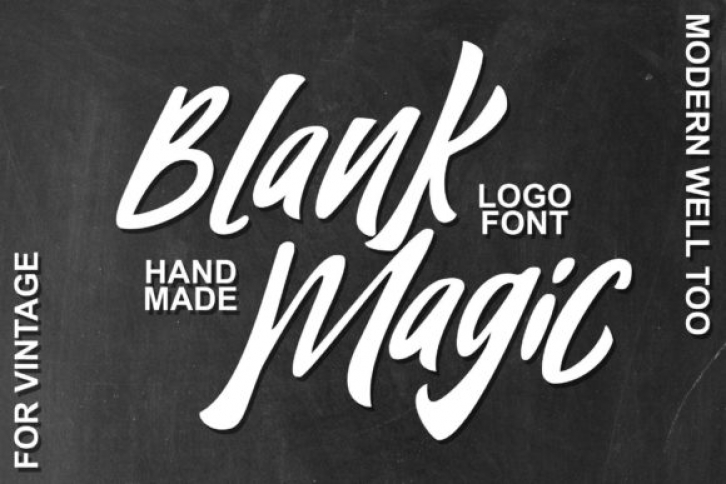
Blank Magic is a simple and bold display font. This font reads as strong, confident, and dynamic and can add tons of nostalgic character to your designs.